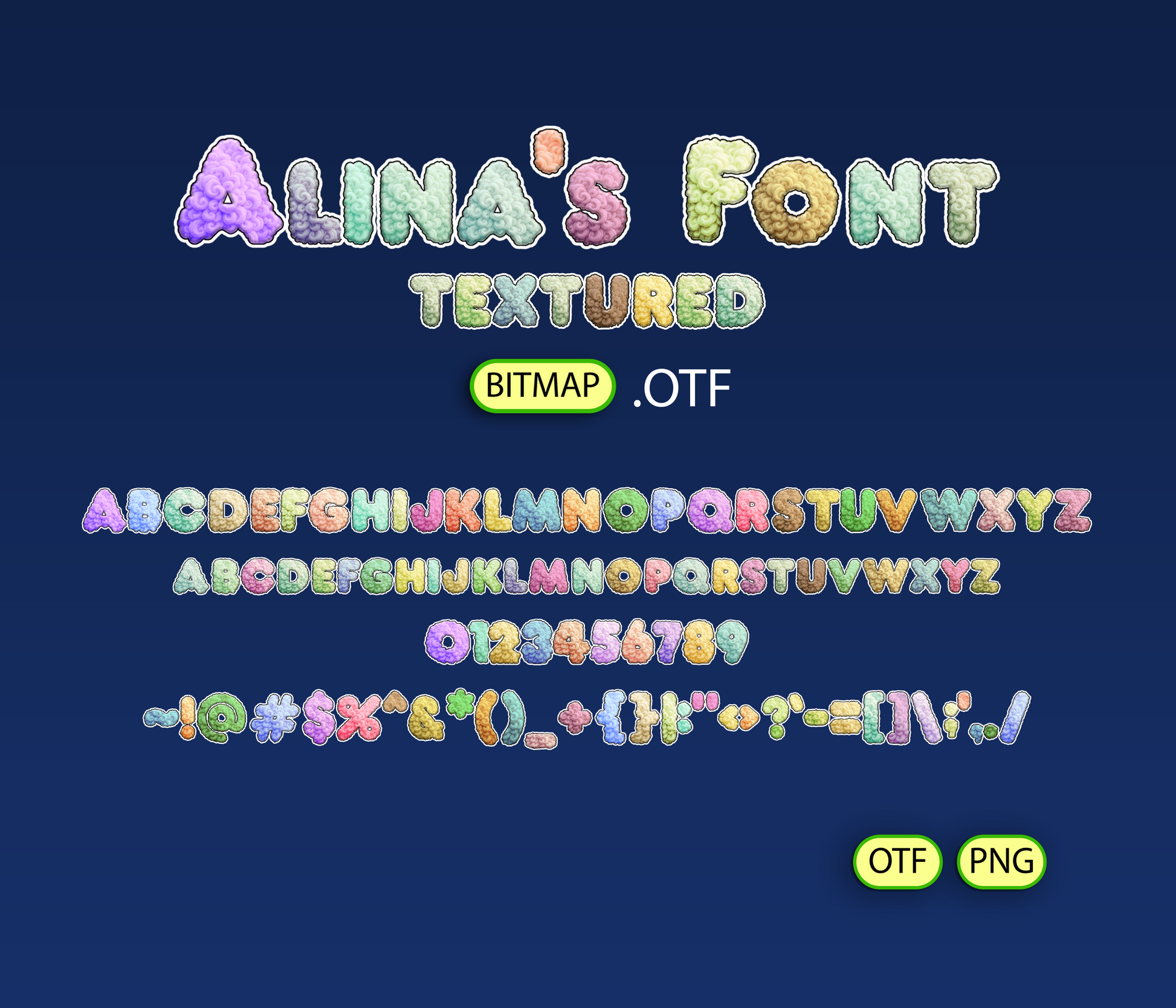
Plushie Dreams Kawaii Collectible Style Font Textured
Plushie Dreams Font Kawaii Collectible Style
Enter the adorable world of designer collectibles with our Plushie Dreams font, capturing the essence of cute character culture and kawaii aesthetics. Perfect for toy designers, pop culture content creators, collectible brand developers, and kawaii enthusiasts, this font brings the charming, whimsical energy of beloved plush companions to your projects. Create delightful merchandise designs, collector event materials, or engaging digital content with the playful, endearing spirit of contemporary character collectibles.
Our Plushie Dreams font features soft, rounded shapes and adorable characters reflecting the cute yet sophisticated aesthetic of designer toy culture and collectible artistry. Ideal for:
- Collector Events: Create eye-catching convention banners, toy fair signage, and exclusive release announcements for designer collectible gatherings
- Kawaii Design: Perfect for character merchandise, cute stationery designs, and adorable party decorations that celebrate kawaii culture
- Digital Media: Enhance social media profiles, collector websites, and online shops with charming headers and graphics that express playful sophistication
- Entertainment Content: Add authentic character to toy photography, unboxing videos, and promotional materials for collectible community events
- Personal Projects: Bring kawaii magic to craft projects, room decorations, and artistic endeavors inspired by the aesthetics of designer plush culture